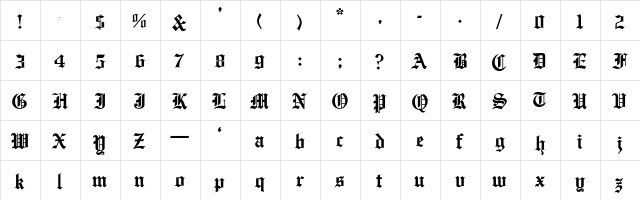
SigroomTowne-Normal Regular Font Preview
SigroomTowne-Normal Regular
SigroomTowne-Normal Regular Font Details
Design Context for SigroomTowne-Normal Typeface
SigroomTowne-Normal is a composed and adaptable typeface that performs quietly and consistently across a wide range of design contexts.